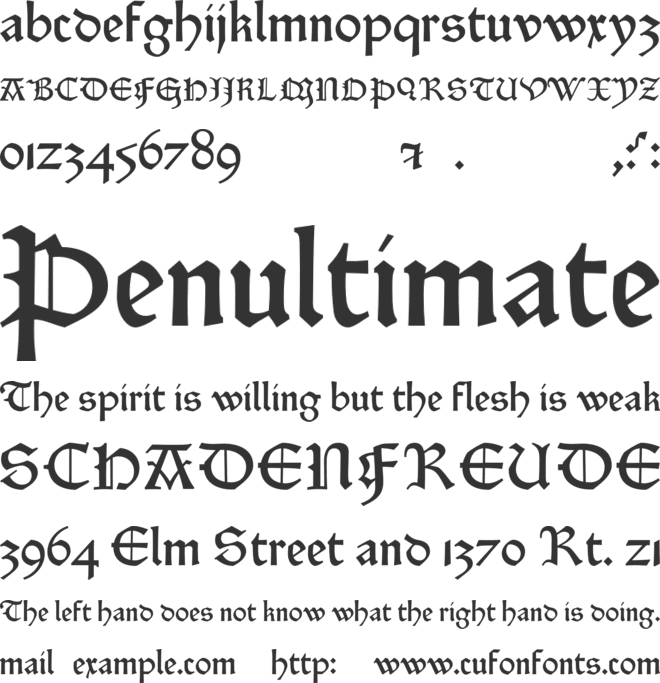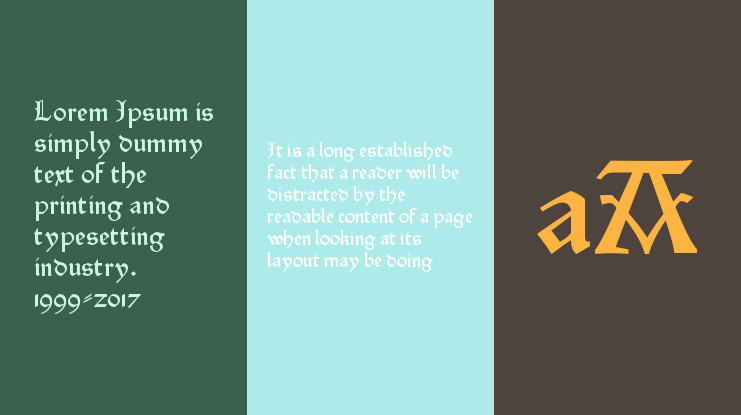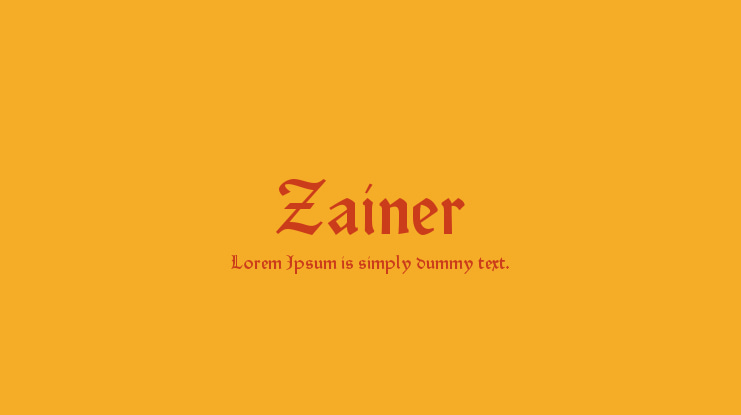
Zainer Font Family
Alexis Faudot, Rafael Ribas
Zainer 96G, Gotico-Antiqua first used in Ulm by Johann Zainer for Jacques de Voragineâs Legenda aurea not after 1477 and used until 1485.Type design workshop at Hochschule Aachen and Stadtbibliothek Aachen, October 2017.Source: Latin Bible, c. 1480.Workshop participants: Annija Ceska, Tobias Küppers, Simon Thiefes, Marco Bazelmans, Martha Ioannidou, Felix Paul Wochnik, Leonie Viola Sarbo, Paul Theisen, Robert Franke, Jennifer Schönlau, Andreas Blindert, Paula Dahlem, Henry Monse, Janusz Kendel, Carlotta Piontkowitz, Alexis Faudot, Rafael Ribas.Font designed and produced by Alexis Faudot and Rafael Ribas, directed by Jérôme Knebusch, Atelier National de Recherche Typographqiue (ANRT), Nancy.Copyright (c) 2019 ANRT. All rights reserved.